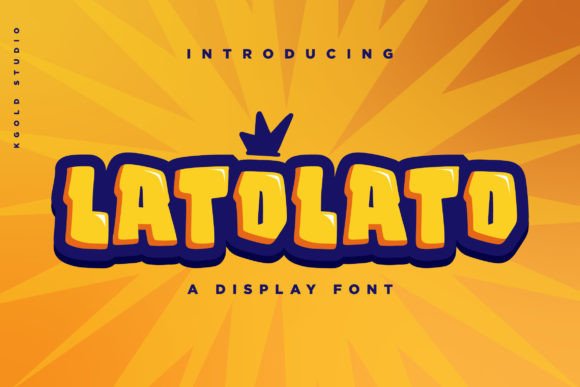
Embark on a typographic adventure with Latolato, a display font family that exudes joy, creativity, and boundless possibilities. Crafted meticulously by the talented Kgold, Latolato is not just a collection of fonts; it's an expression of individuality, a celebration of life's sweetest moments, and a gateway to imaginative storytelling.
Immerse yourself in a world where letters dance with delight, where each character carries a story, and where every design speaks volumes. Latolato is a symphony of thick, bold strokes that commands attention, inviting you to explore the extraordinary in the ordinary.
With its playful and vibrant personality, Latolato is the perfect choice for crafting baby shower invitations, nursery wall art, personalized gifts, and any project that demands a touch of whimsy. Its versatility extends beyond the digital realm, making it an ideal companion for scrapbooking, card making, and other papercraft endeavors.
Whether you're a seasoned designer seeking a font that adds a spark to your work or a creative hobbyist looking to elevate your projects, Latolato is the font that will ignite your imagination and leave a lasting impression.
Step into a world of endless creativity with Latolato, the font that turns every design into a masterpiece. Its bold, cheerful presence will transform your projects, bringing smiles to faces and capturing hearts.